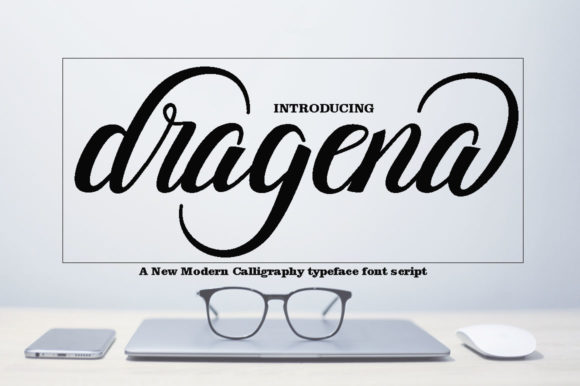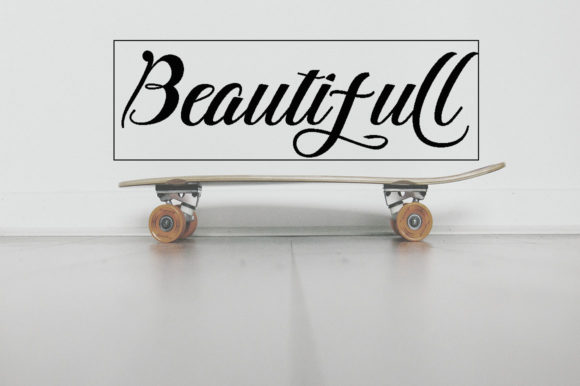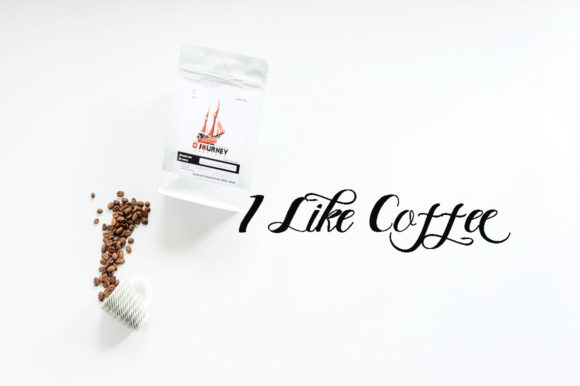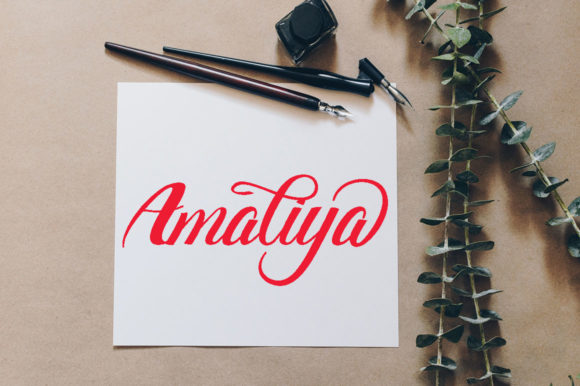
Dragena Font
About Dragena Font
Dragena is a bold handwritten font. It features a modern style that will elevate a wide range of design projects to the highest level, be it branding, headings, wedding designs, invitations, signatures, logos, labels, and much more!